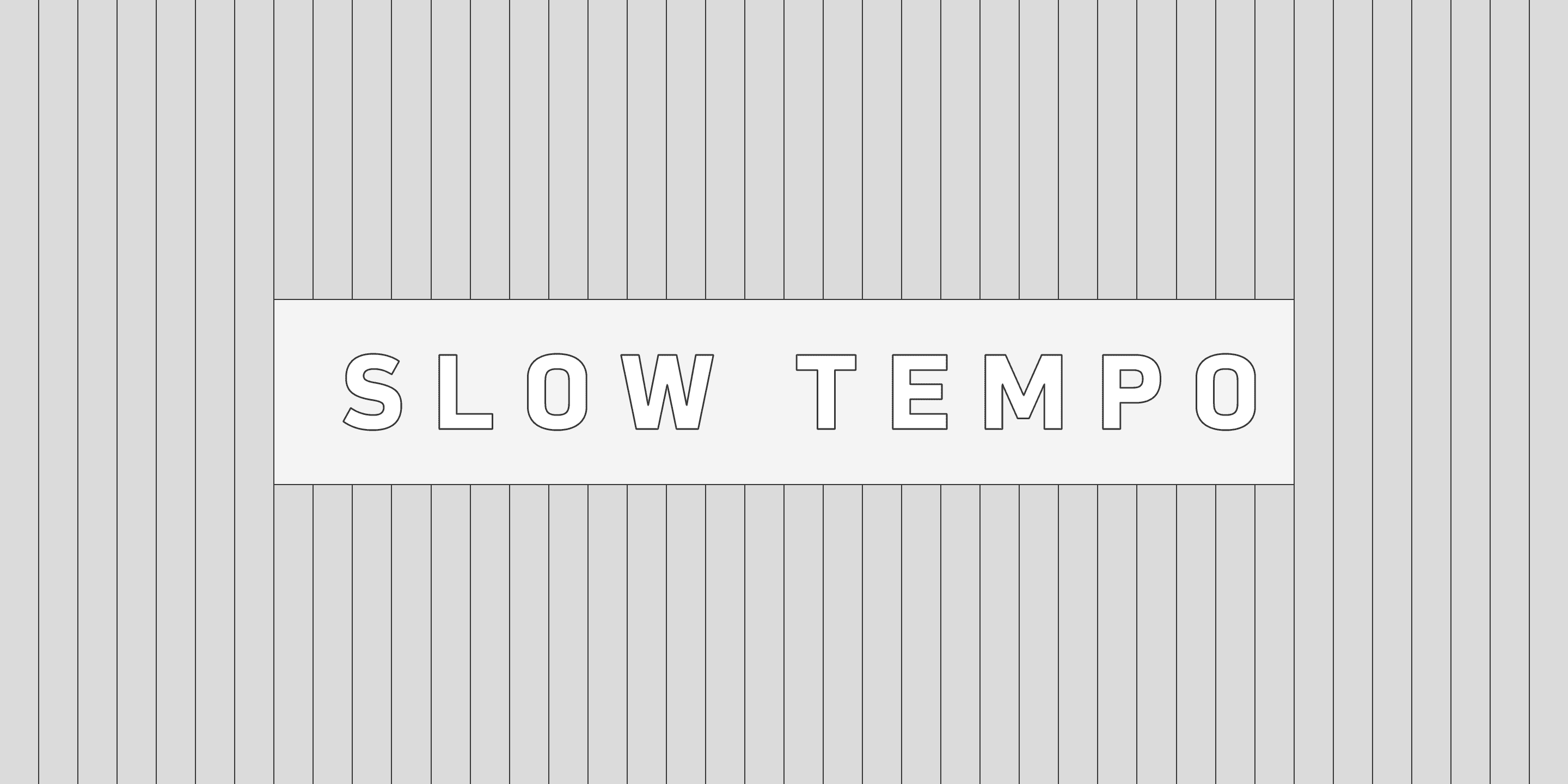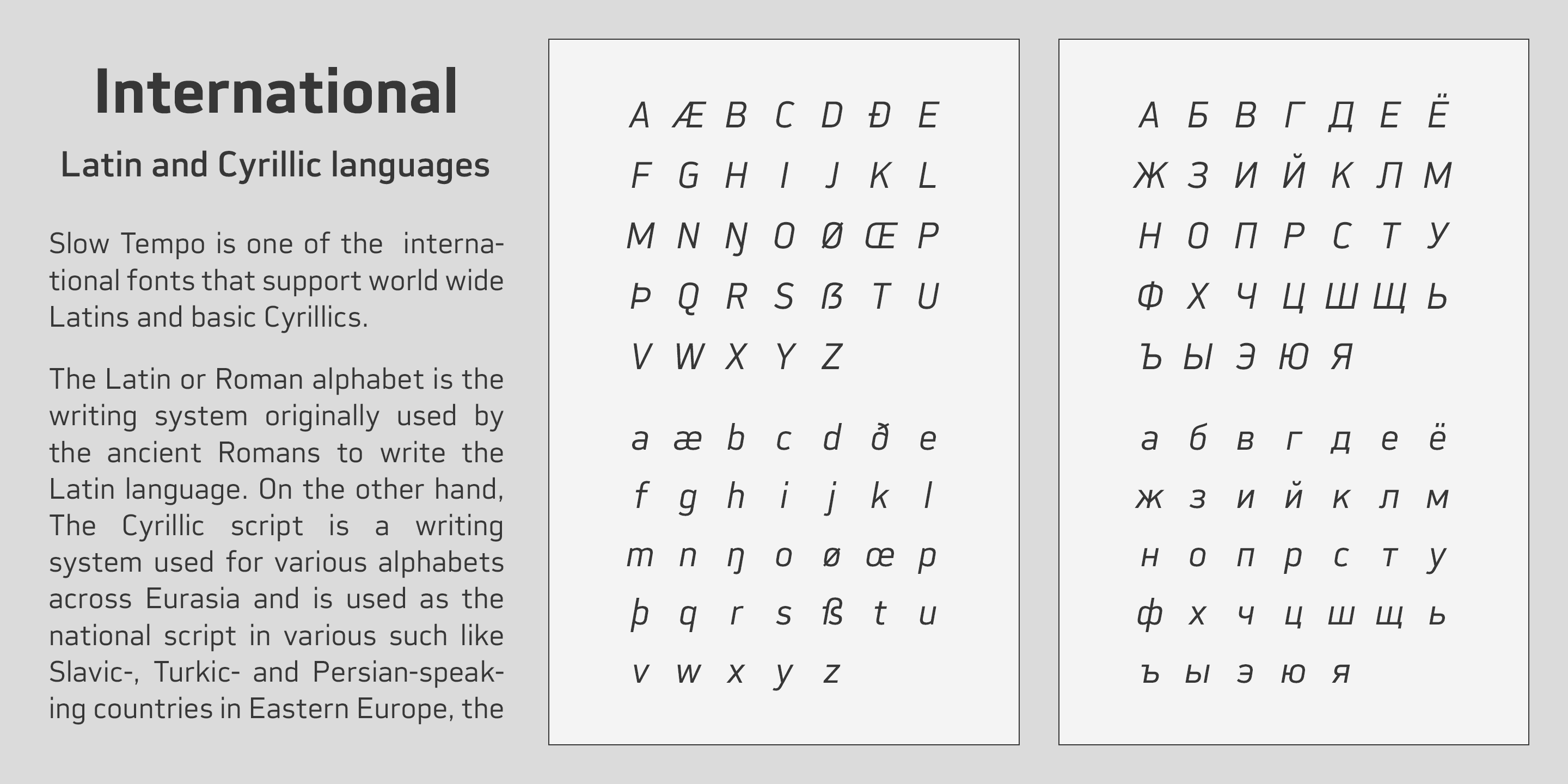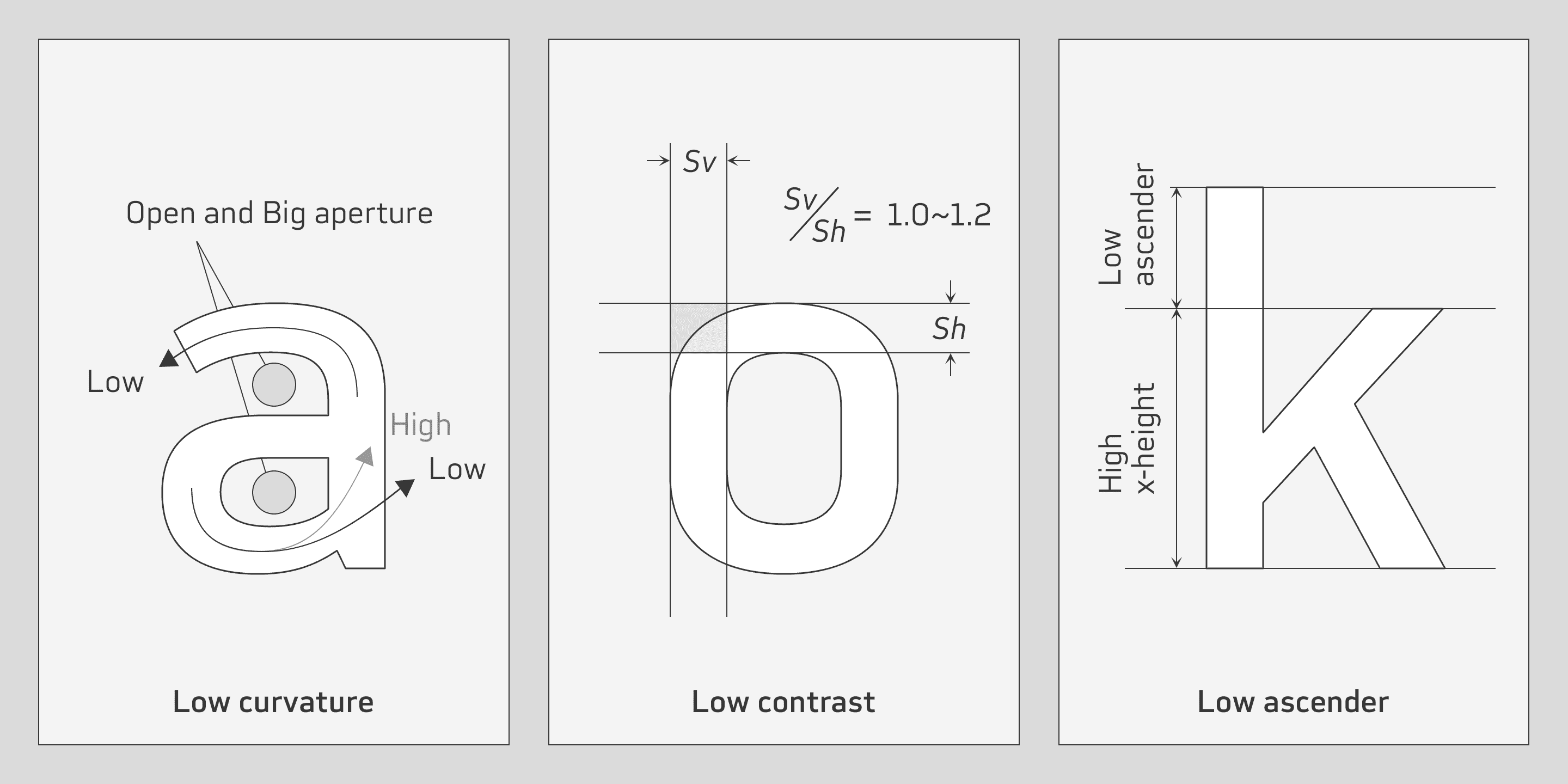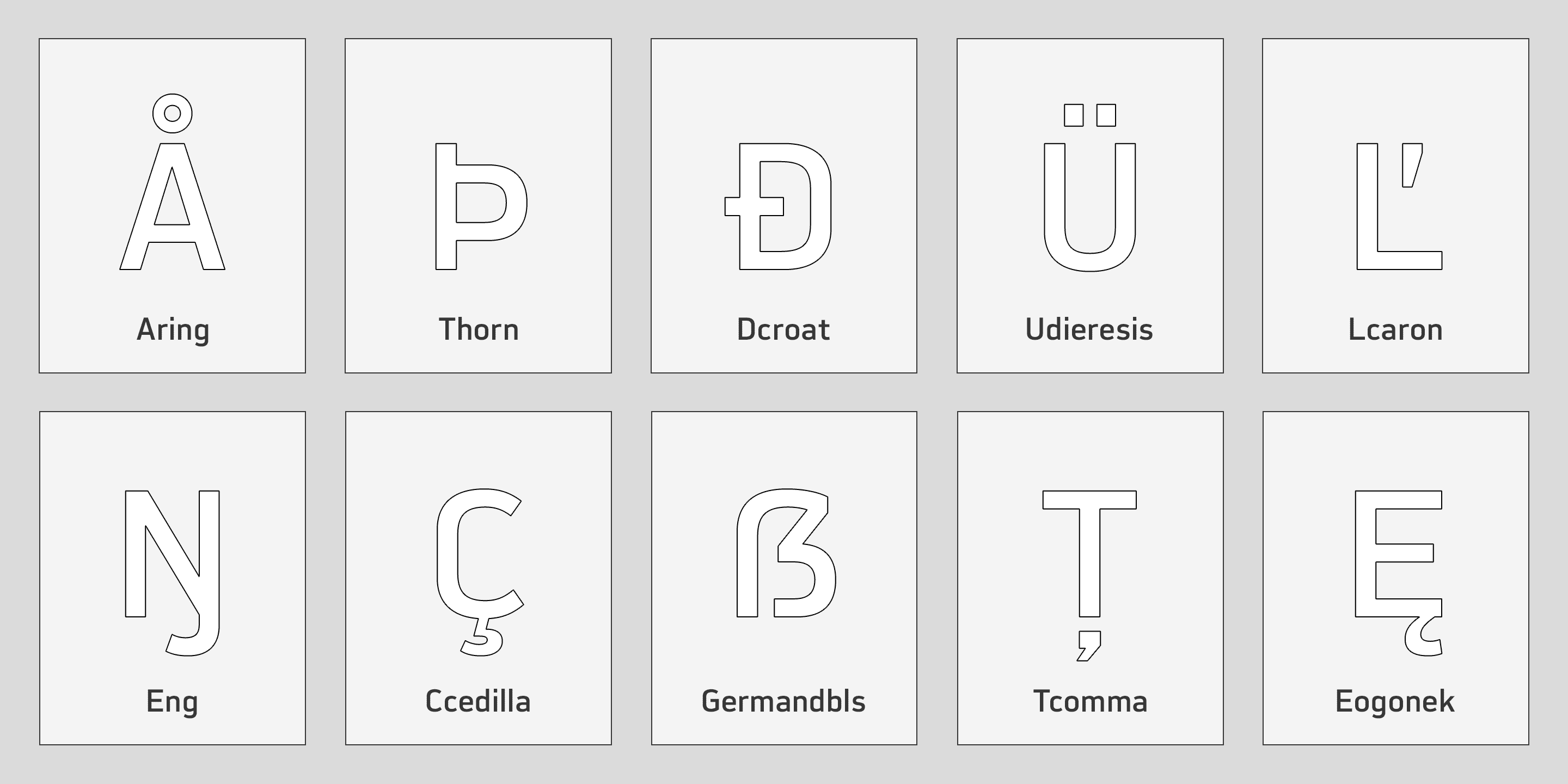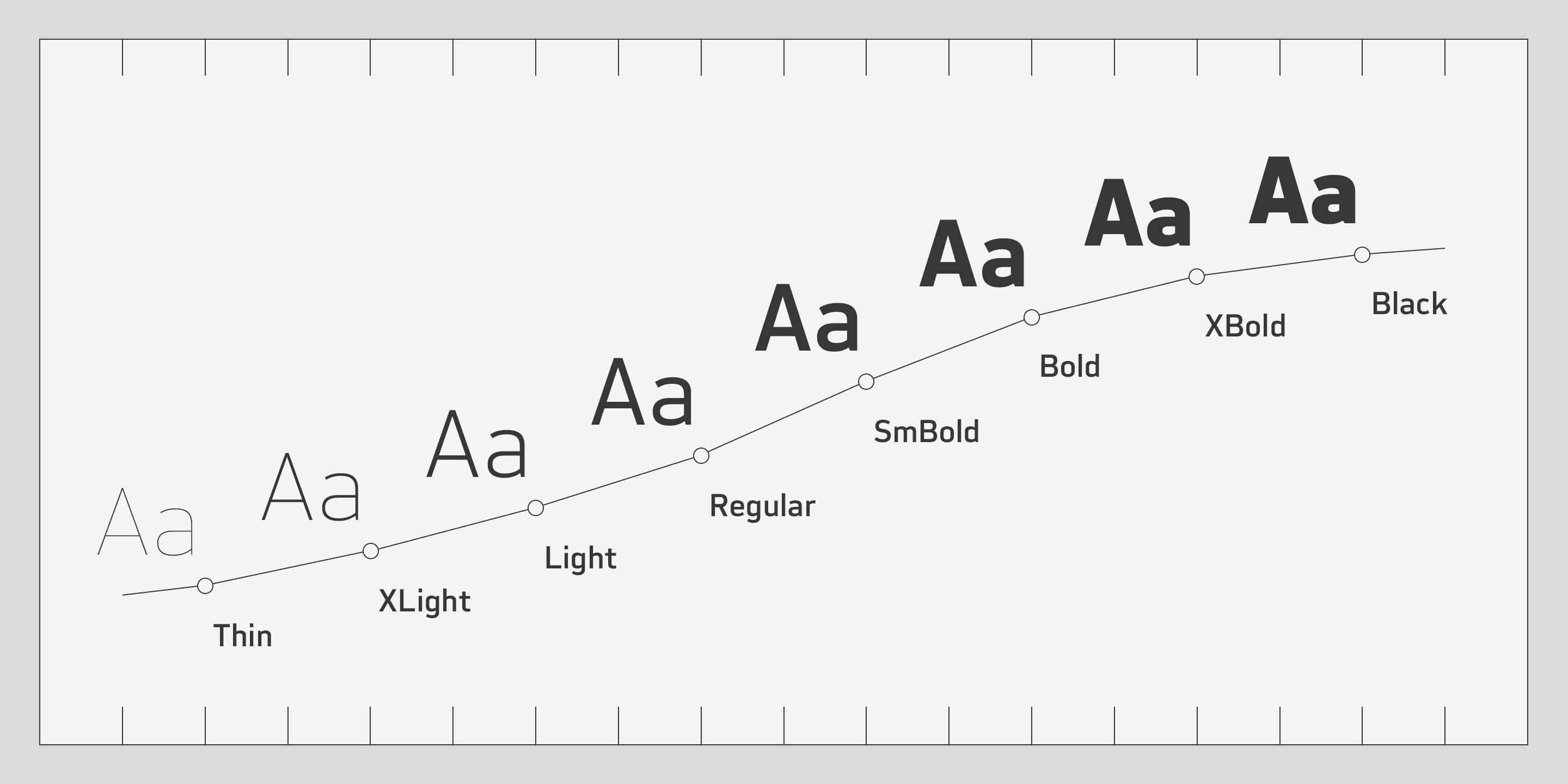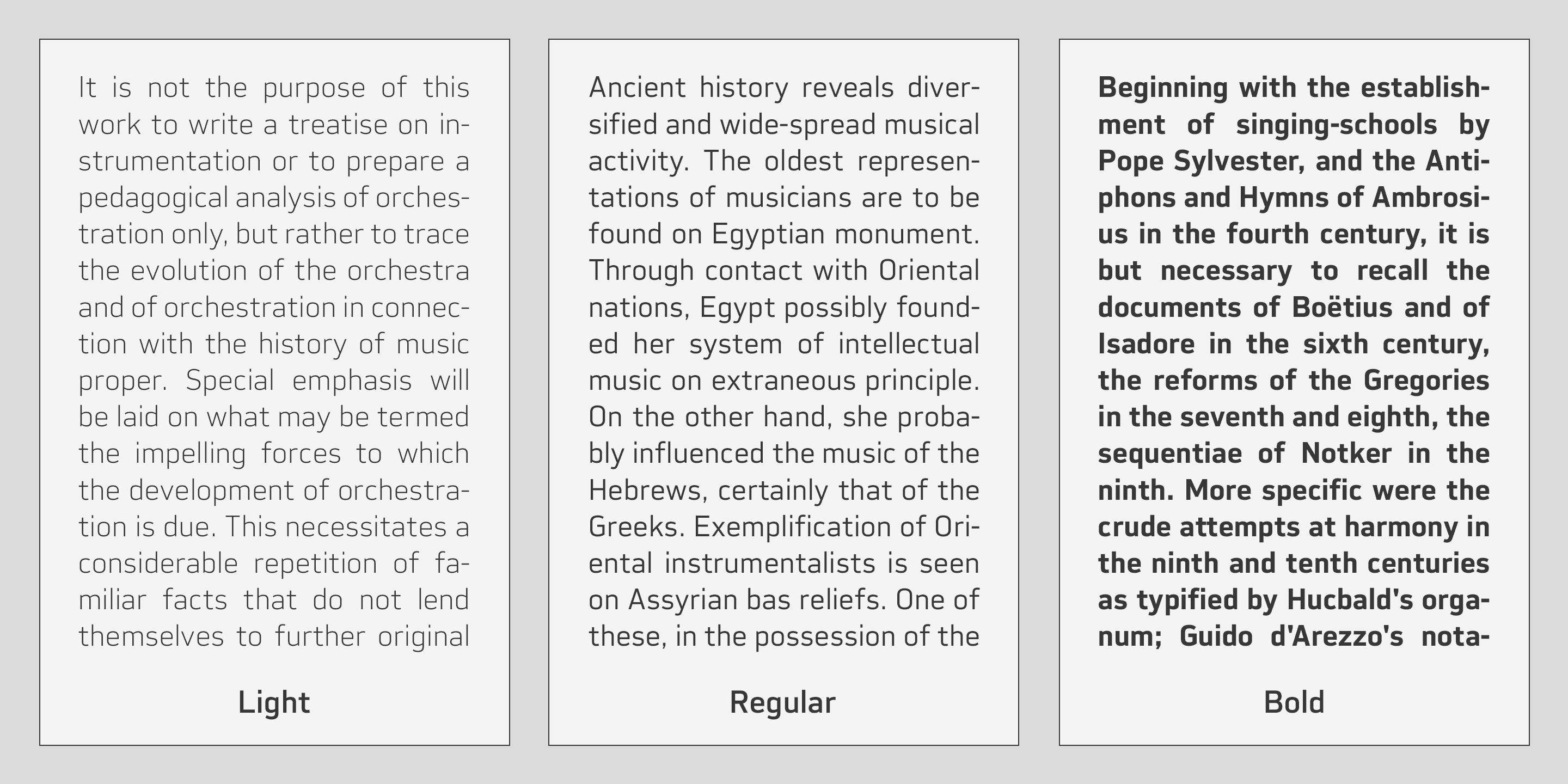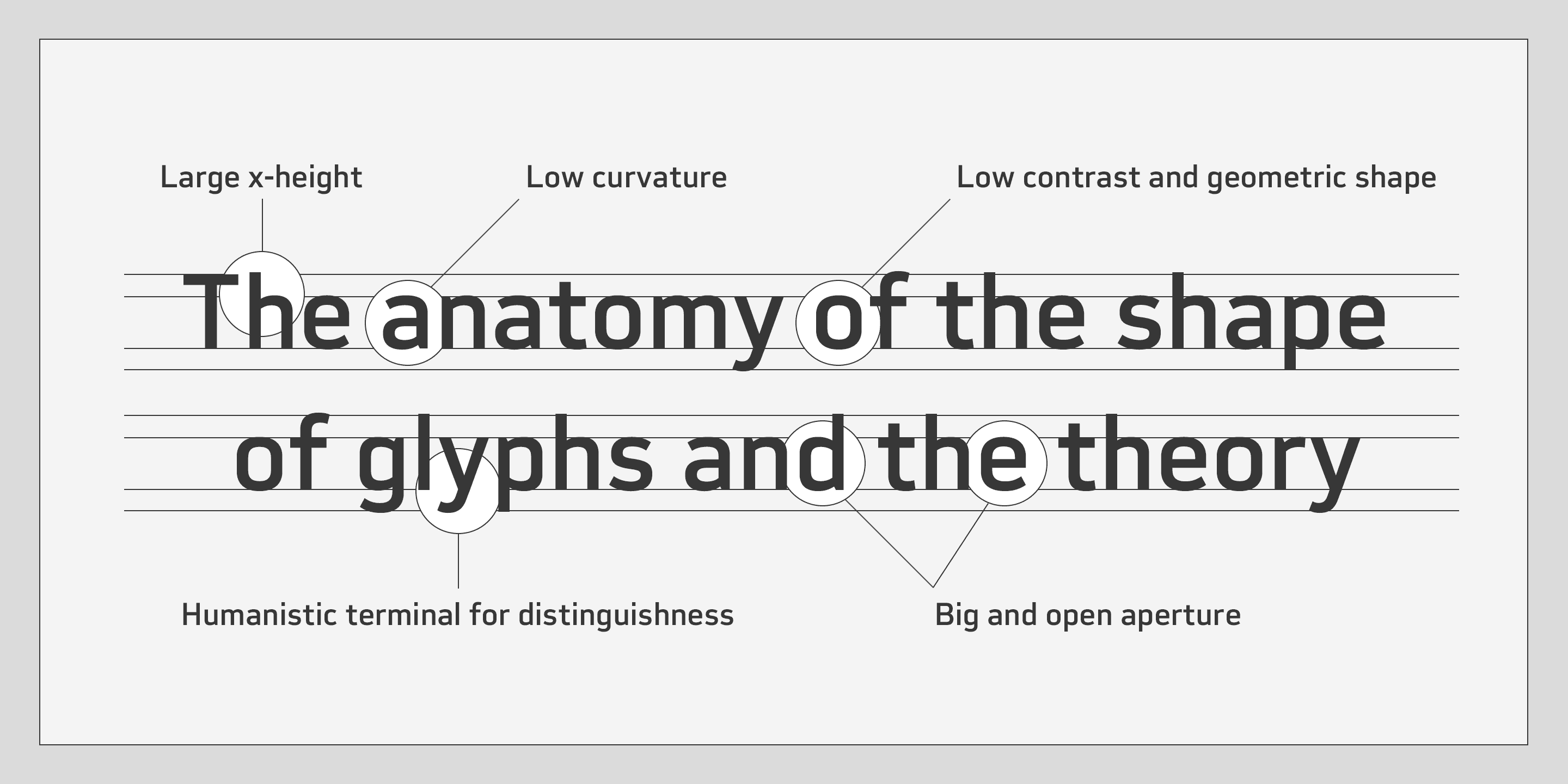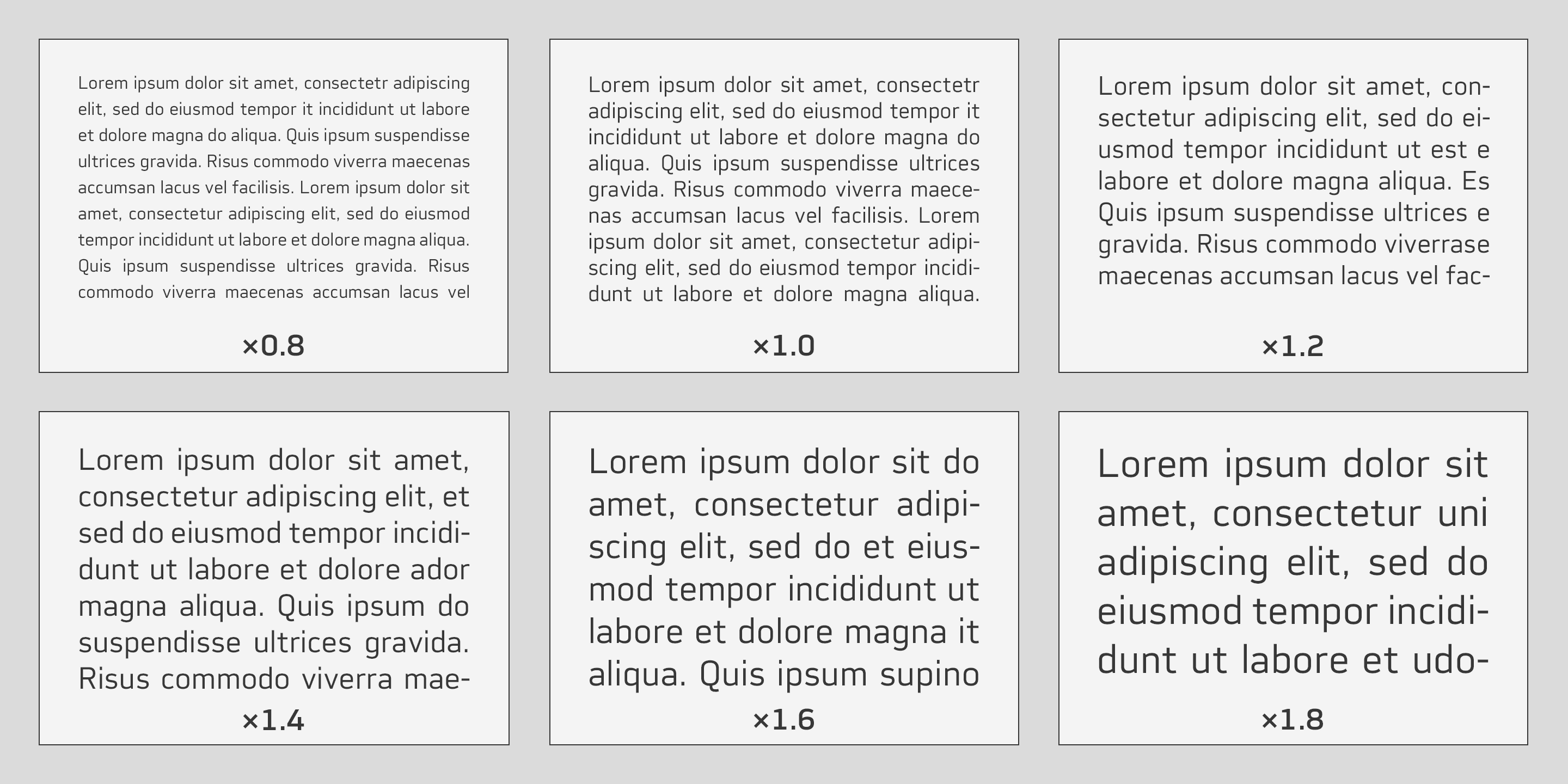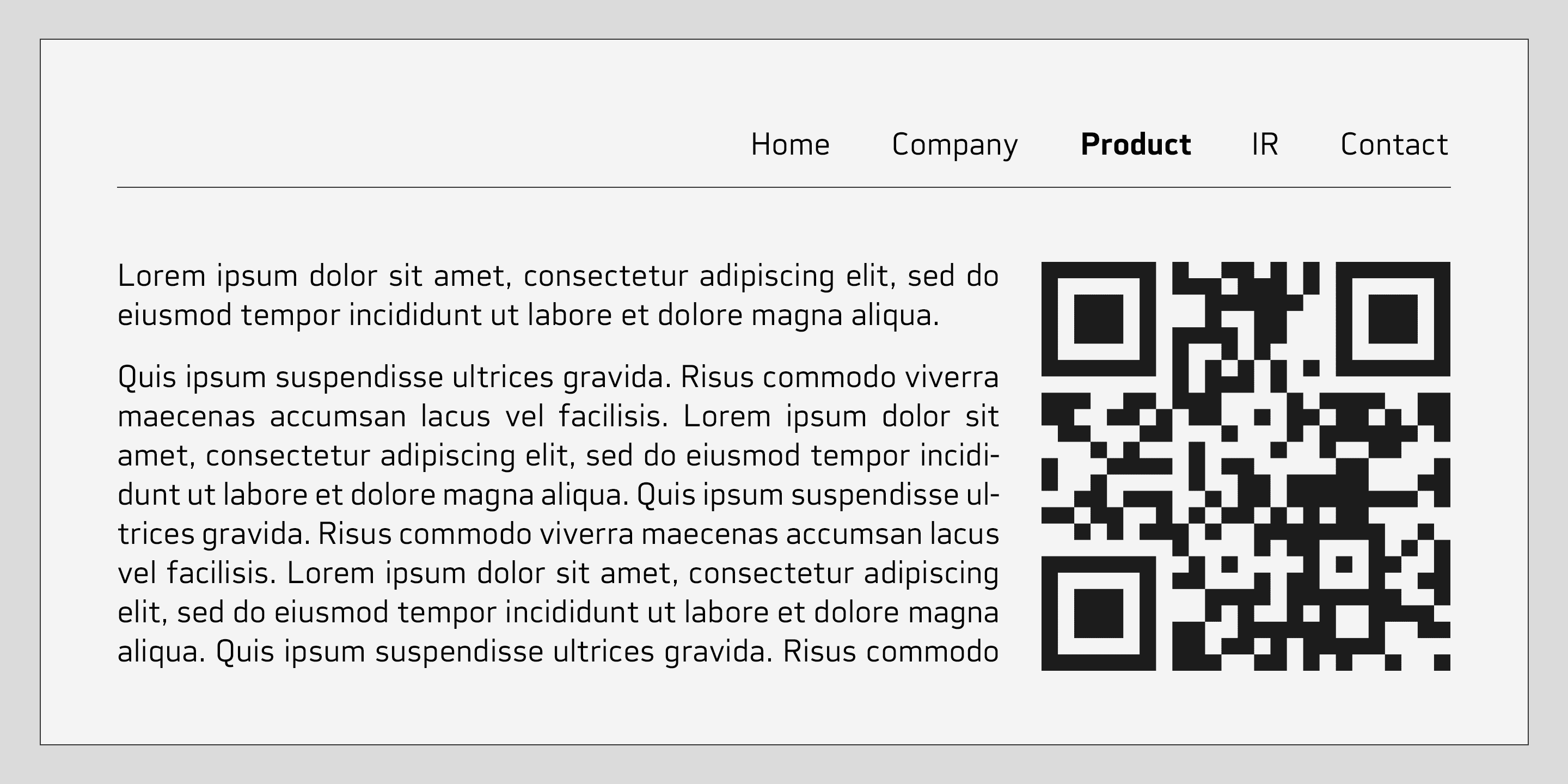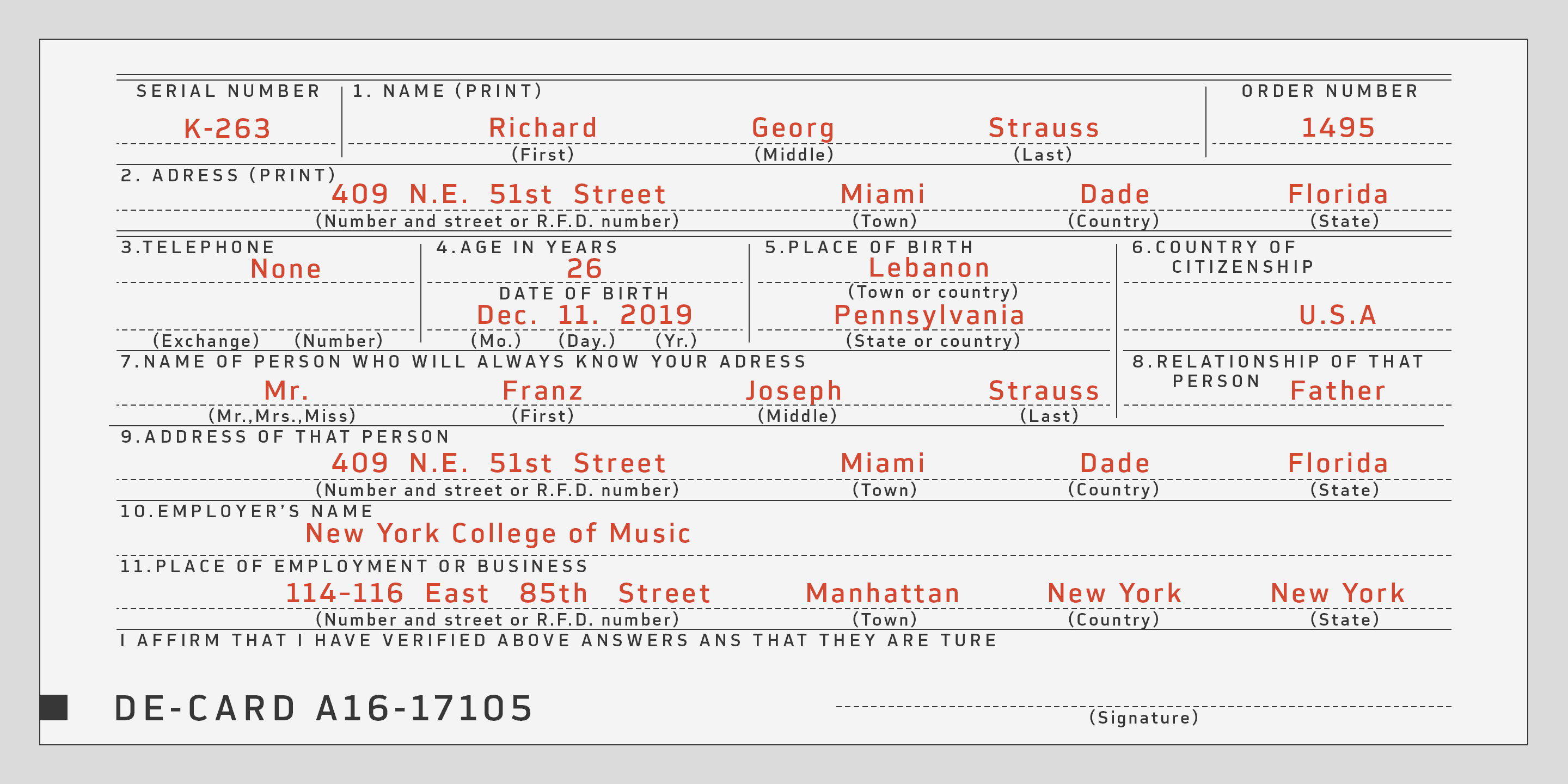
Slow Tempo has basic, natural and neutral letterforms and skeletons for a wide range of usage. Though, there are some distinctive features. As you can see, Slow Tempo has low curvature of the intersections between stem & shoulder or bowl and also has large & open apertures. This makes this font relaxed. The letterform has low contrast and geometric shape to be a neutral design, large x-height and humanistic terminal to be legible and distinguishable.
Slow Tempo consists of 8 weights and their matching Italics for a wide range of usages. Further, Slow Tempo is supporting international Latin languages and basic Cyrillic languages including Basic Latin, Western Europe, Central and South-Eastern Europe. Also CSS covers Mac Roman, Windows1252, Adobe1 to 3. This wide range of international characters expands the capability of your works."